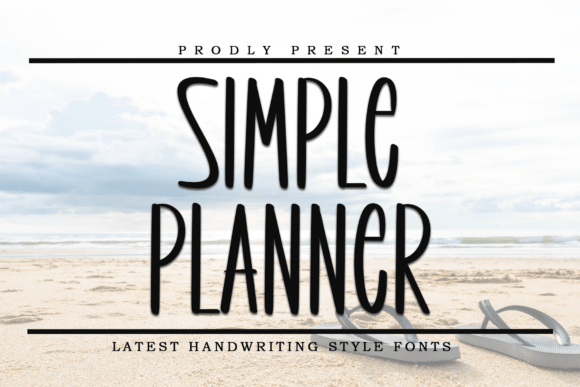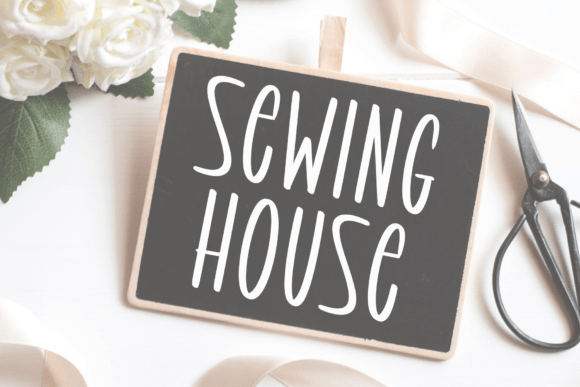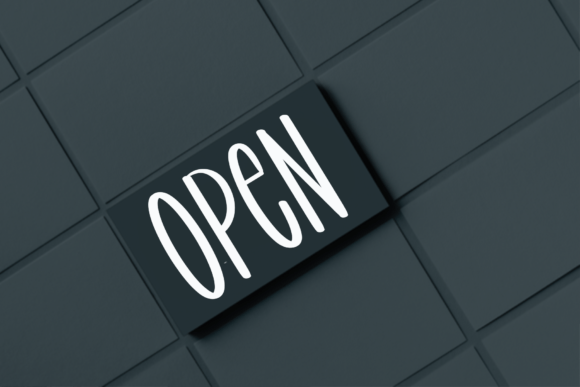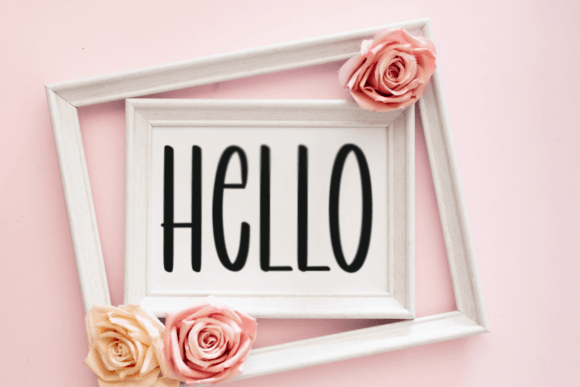
About Simple Planner Font
“Simple Planner” is a stylish handwritten font that embodies a contemporary atmosphere while maintaining impeccable form, drawing inspiration from timeless classic calligraphy. This font strikes a balance between its various elements, offering a versatile choice that enhances the beauty of your creative projects.
1. **Stylish Contemporary Design:** “Simple Planner” boasts a modern and stylish design that can add a contemporary touch to your projects. Its clean lines and balanced forms make it an excellent choice for a wide range of design applications.
2. **Timeless Classic Calligraphy Influence:** While it features a contemporary style, “Simple Planner” also carries elements of timeless classic calligraphy, giving it a touch of elegance and sophistication.
3. **Versatile Usability:** The font’s versatility allows it to be used for various design projects, including branding, logo design, graphic design, and typography. It adapts well to different contexts and creative applications.
4. **Enhanced Visual Appeal:** “Simple Planner” can enhance the visual appeal of your projects, making them more engaging and memorable. Its balanced and varied design elements contribute to its aesthetic charm.
5. **Personal and Professional Use:** Whether you’re designing for personal projects, such as invitations and stationery, or professional projects like branding and marketing materials, “Simple Planner” can help convey your message effectively.
In essence, “Simple Planner” is a versatile and stylish handwritten font that combines contemporary aesthetics with classic calligraphic influences. Its impeccable form and adaptability make it a valuable asset for designers and individuals looking to elevate the beauty and visual impact of their creative endeavors.